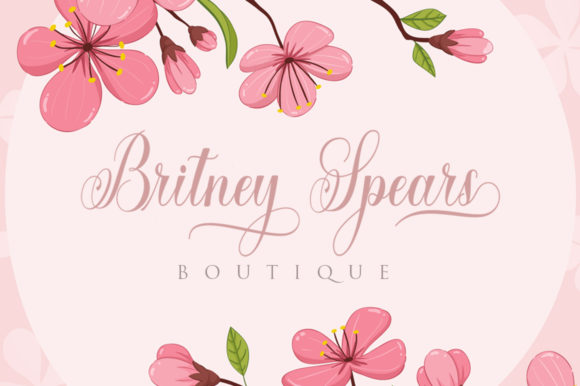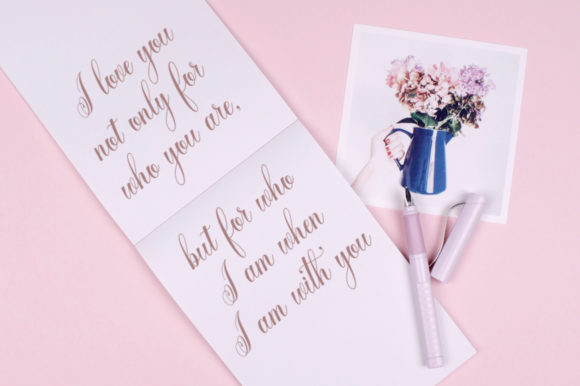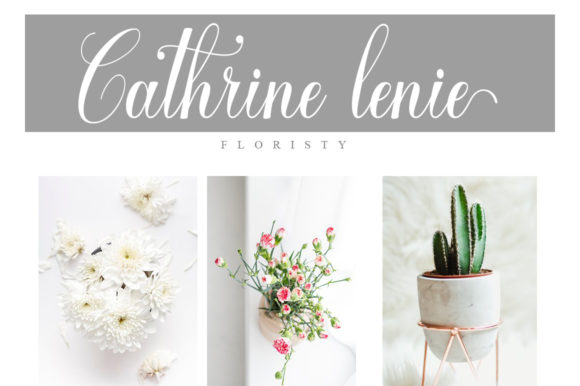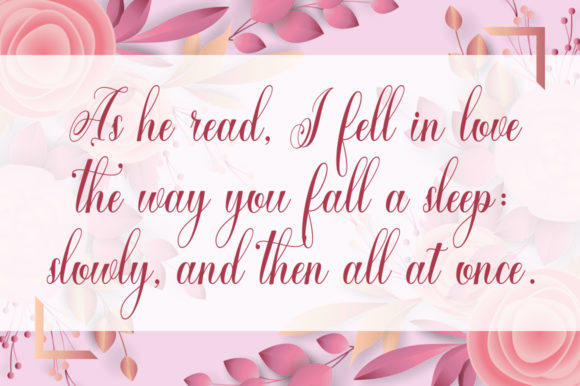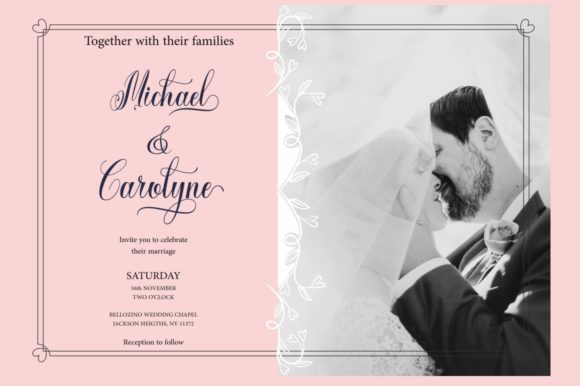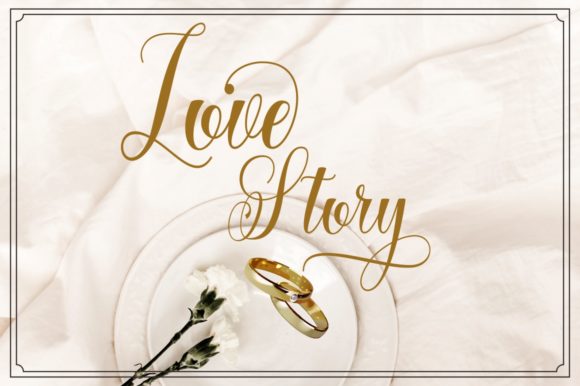
Falling in Love with Brittalia Script Font
I’ll never forget the design project that led me to discover the charming Brittalia Script Font. I was working on a whimsical branding project for a boutique bakery, and I was struggling to find the perfect font to capture their playful yet elegant vibe. That’s when I stumbled upon Brittalia, and it instantly stole my heart. In this article, I’ll share my love for this font, its unique features, and provide a comprehensive guide on how to make the most of it in your designs.
An Honest Review of Brittalia Script Font
What I Love About Brittalia ✨
- Unique charm: Brittalia has a distinct personality that sets it apart from other script fonts.
- Timeless appeal: Despite being a modern font, Brittalia has a classic feel that makes it suitable for a wide range of design projects.
- Elegant swashes: The font comes with beautiful swashes that add a touch of sophistication to any design.
- Easy to read: Brittalia is surprisingly legible, making it perfect for body text and headlines.
While Brittalia is an amazing font, it’s not perfect. Here are a few things to keep in mind:
- Kerning: Some users have reported issues with kerning, especially when using the font at smaller sizes. 🤔
- Limited language support: Brittalia primarily supports English and some European languages.
A Practical Guide to Using Brittalia Script Font
The Backstory of Brittalia Script Font
Brittalia was designed by a talented type designer who wanted to create a font that would capture the essence of traditional British culture with a modern twist. The font’s unique charm and timeless appeal have made it a favorite among designers and crafters.
Q: What is the history behind Brittalia Script Font?
A: Brittalia was designed to capture the essence of traditional British culture with a modern twist.
Q: Is Brittalia a versatile font?
A: Absolutely! Brittalia can be used for a wide range of design projects, from branding and packaging to signage and digital media.